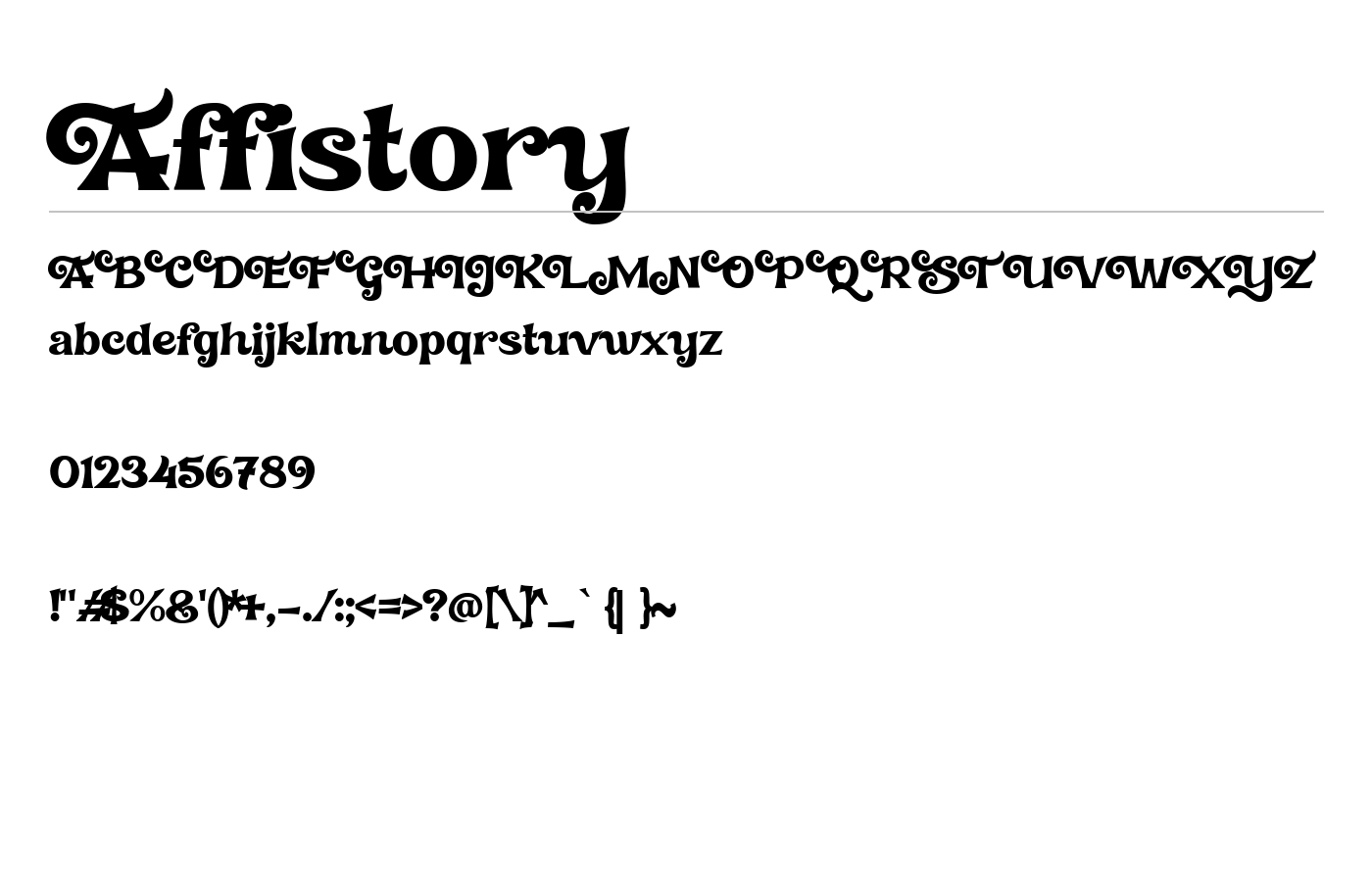
Affistory is a decorative serif font featuring bold, thick strokes with playful, intricate curls and swirls especially prominent in the uppercase letters. Its strong, theatrical style with high contrast and unique ornamental details gives it a vintage, whimsical vibe that works wonderfully for eye-catching headlines, logos, and creative packaging where personality and flair are key. This font is perfect for projects that want to evoke a sense of classic charm with a fun, artistic twist.
Affistory Font
About Affistory Font